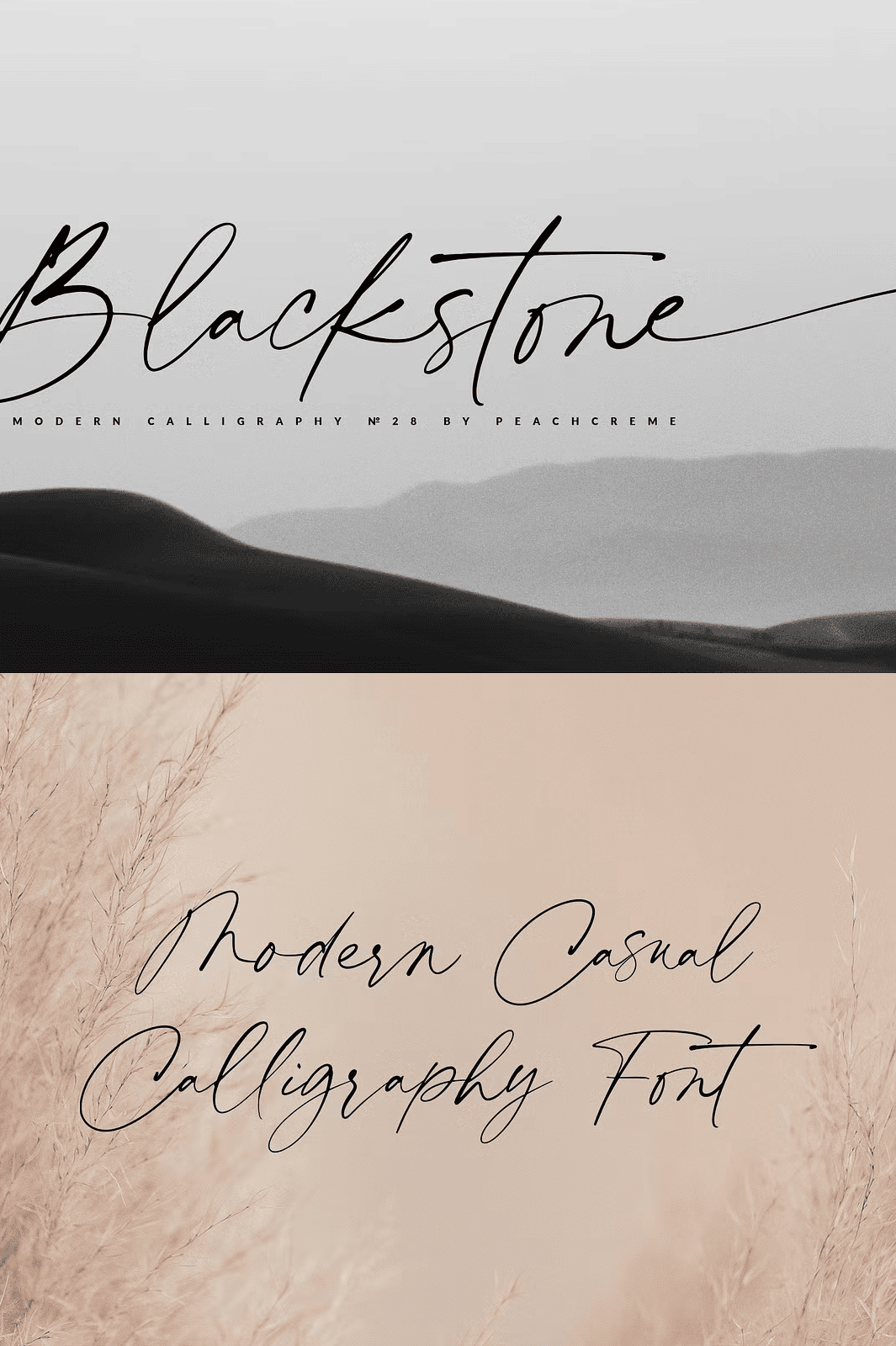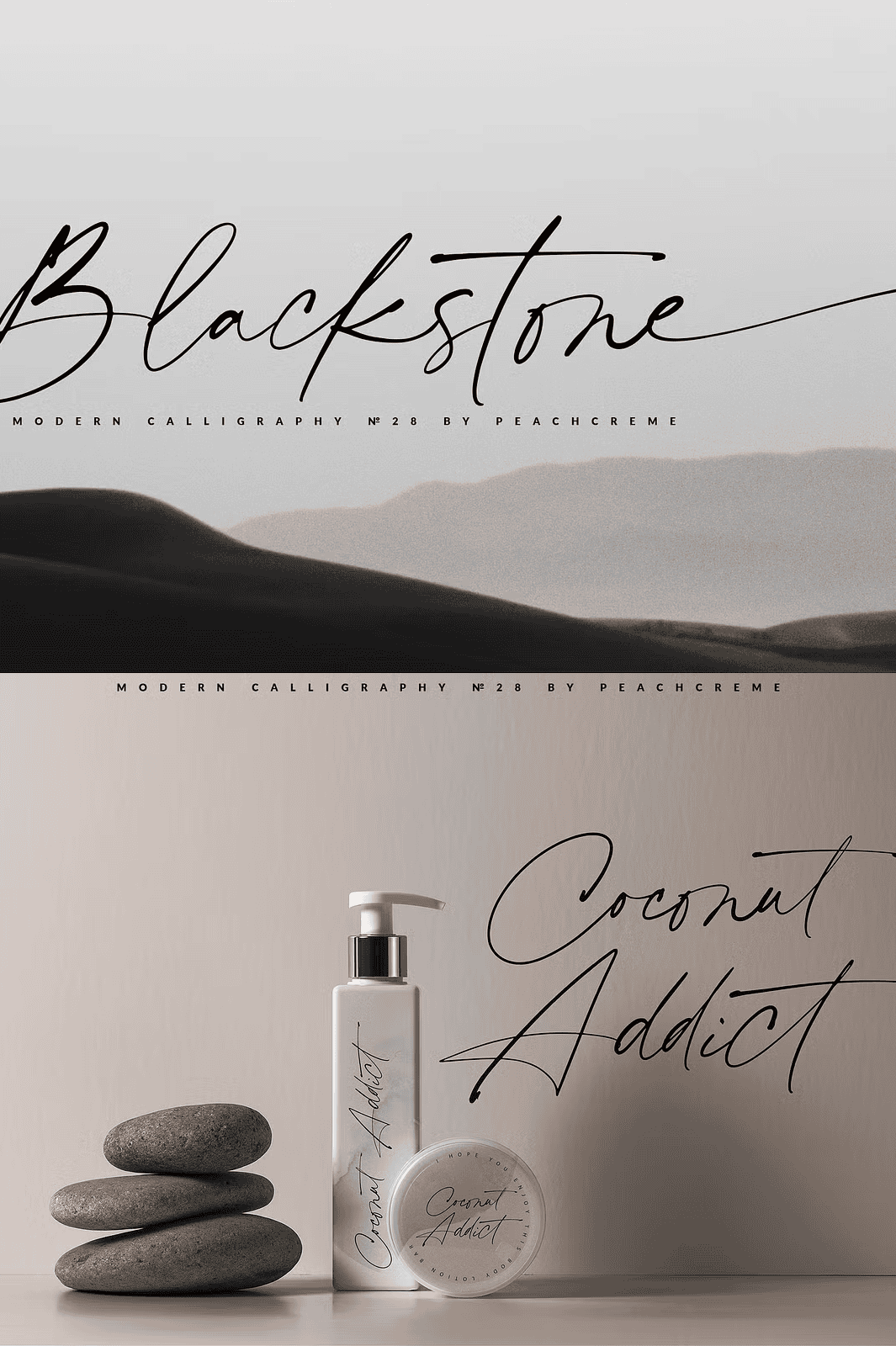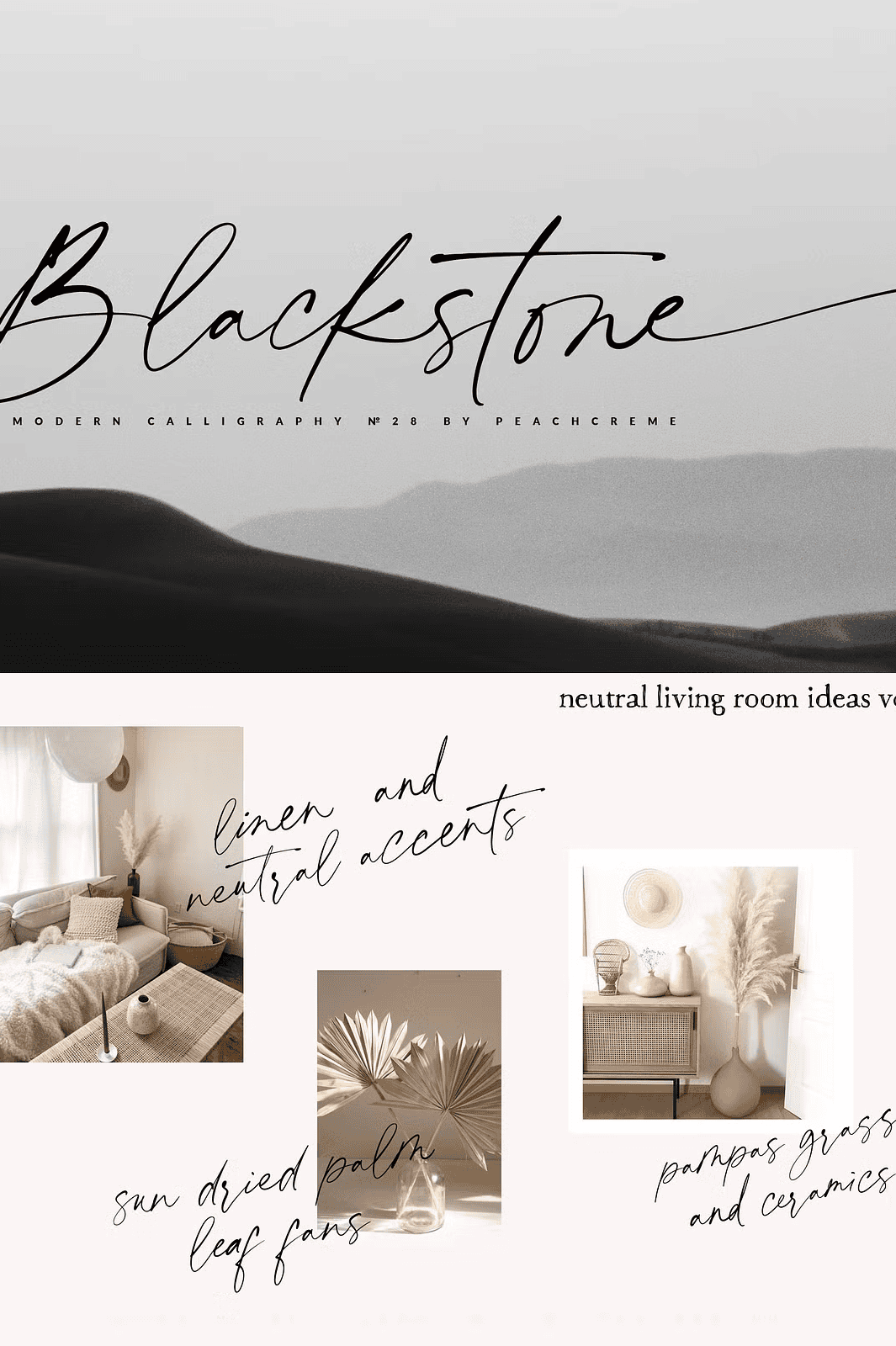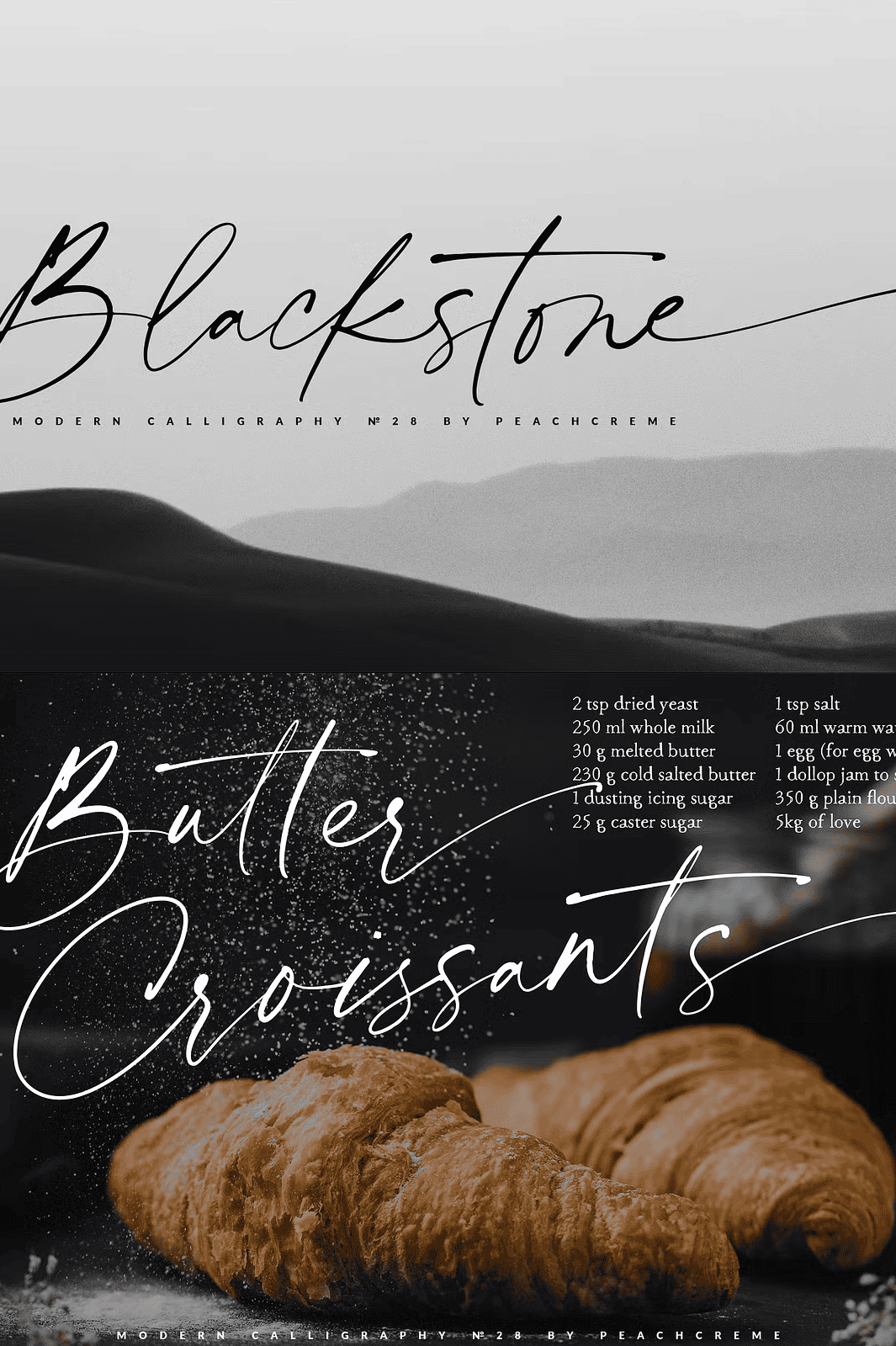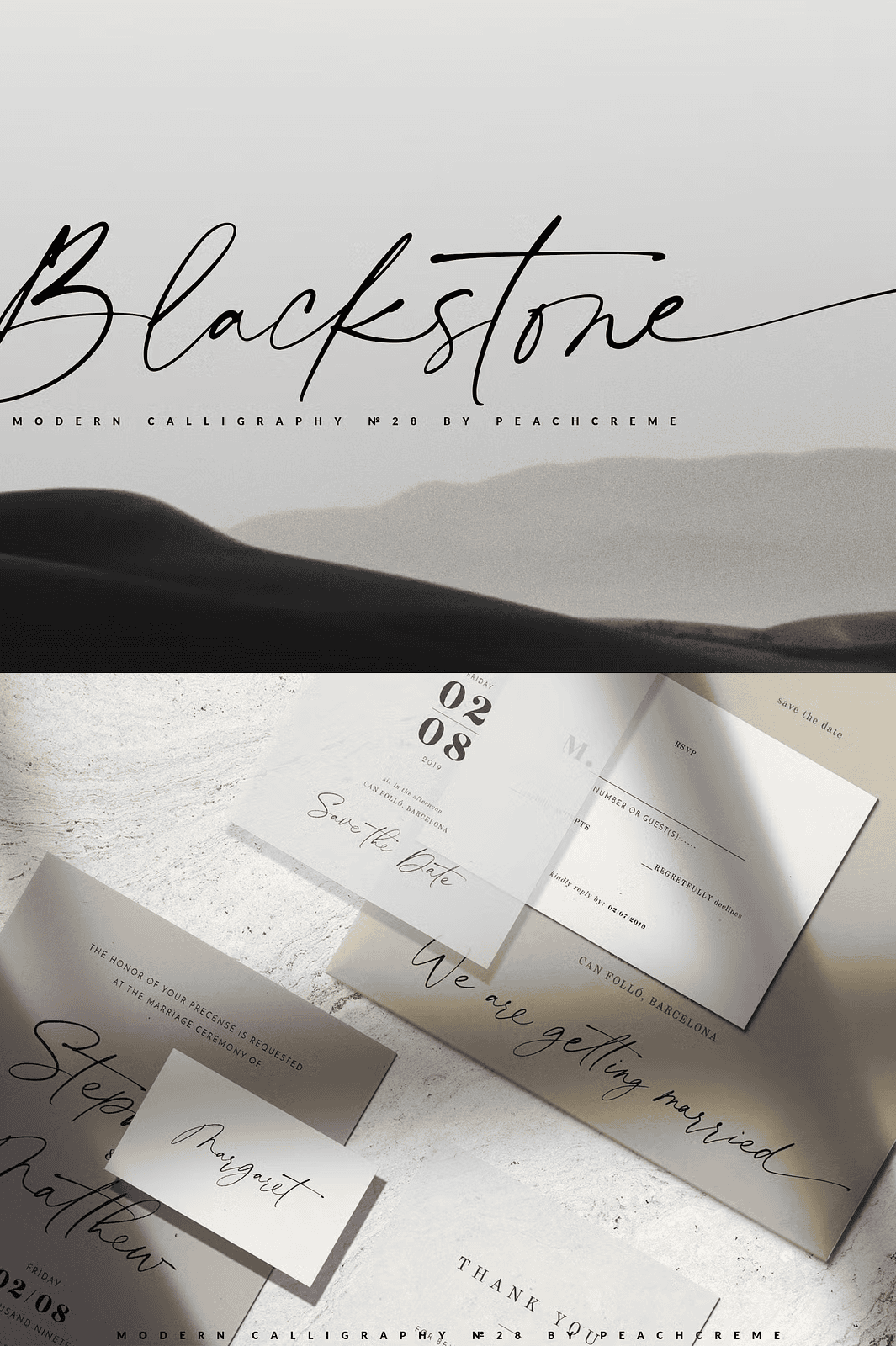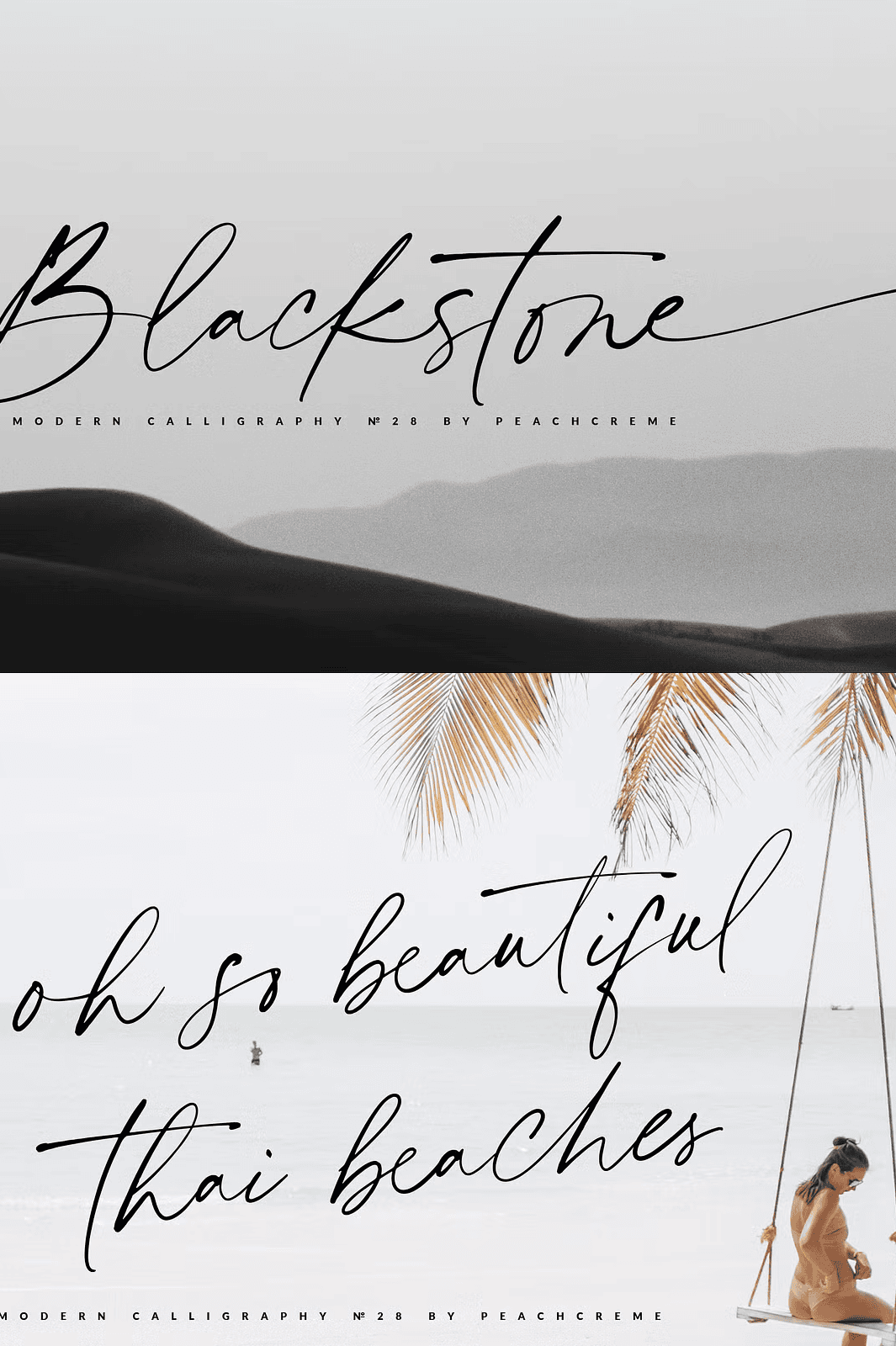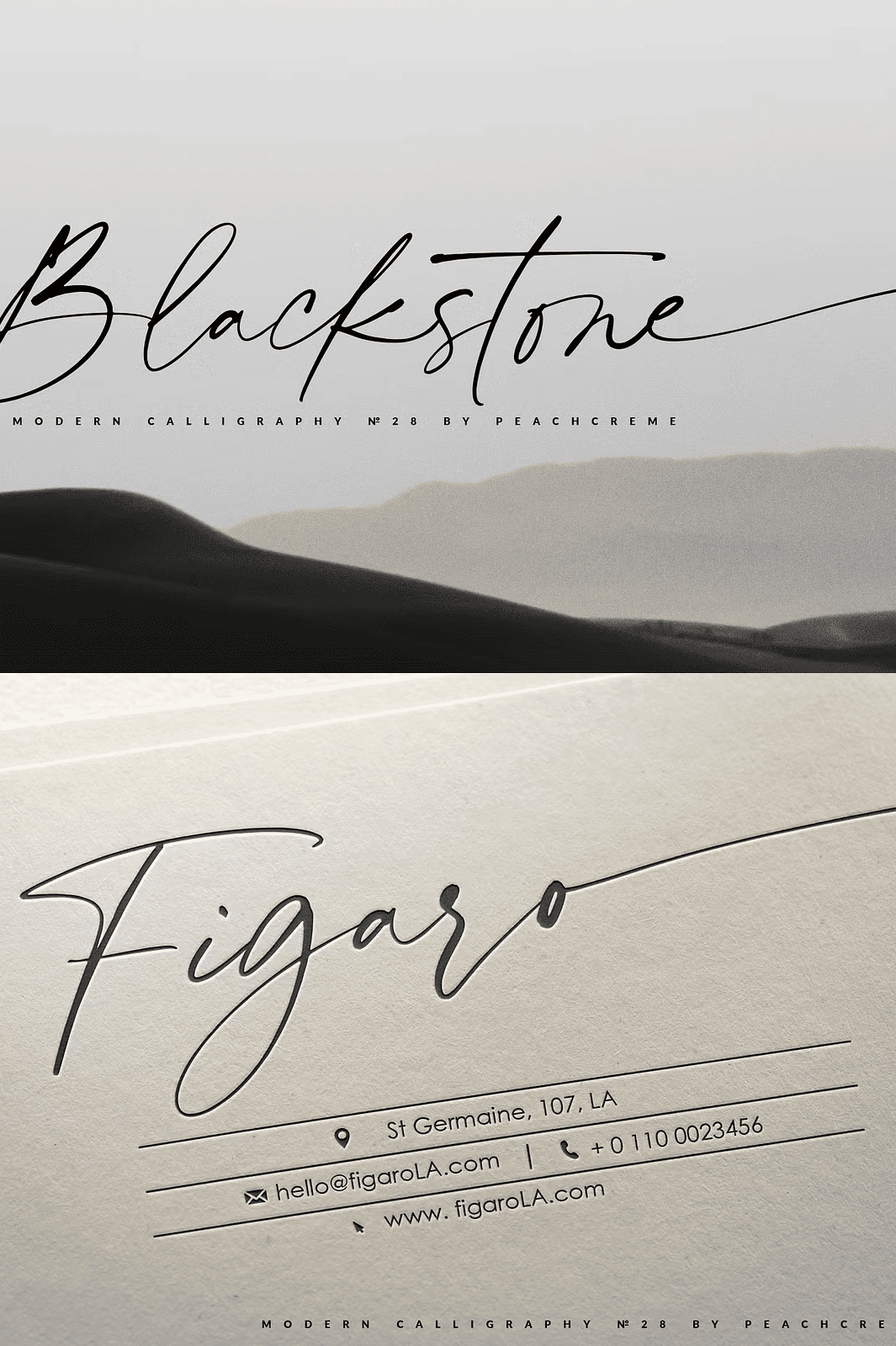
Step Into the World of Effortless Sophistication
Elevate every creative project with **Blackstone**, a stunning modern calligraphy font that blends **casual chic energy** with **refined typographic precision**. This isn’t just a font — it’s a design mindset. With its graceful flow, confident presence, and authentic hand-lettered feel, Blackstone transforms ordinary text into extraordinary visual storytelling. Whether you’re designing wedding invitations, crafting a high-end brand identity, or labeling a bottle of premium red wine, Blackstone delivers a bold yet graceful signature.
This dynamic script is built for creators who demand **both style and substance**. Every character is meticulously crafted to reflect the natural rhythm of hand-drawn lettering, while maintaining the consistency and scalability digital design requires. The result? Typography that feels personal, powerful, and perfectly placed.
Rich Typographic Features for Maximum Creative Freedom
Blackstone is not a basic script font — it’s a complete typographic system. Designed with professional use in mind, it includes:
– **Full uppercase and lowercase letter sets** — each styled with elegance and purpose.
– **Complete numerals and punctuation** — ensuring seamless functionality in any layout.
– **An impressive 85 ligatures** — crafted to connect letters naturally, mimicking real pen strokes.
– **Beginning and ending swashes on all lowercase letters** — achieving a realistic, hand-lettered finish that adds depth and motion to your designs.
These powerful tools give you direct access to the font’s advanced features, making it easy to switch between clean, minimalist text and expressive, dramatic compositions.
Why use a generic font that blends in? Stand out with **Blackstone**, the modern calligraphy font that brings **confidence, flair, and effortless elegance** to every project. Whether you’re designing a romantic wedding suite, a boutique label, or a bold brand campaign, Blackstone gives your work the soul it deserves.